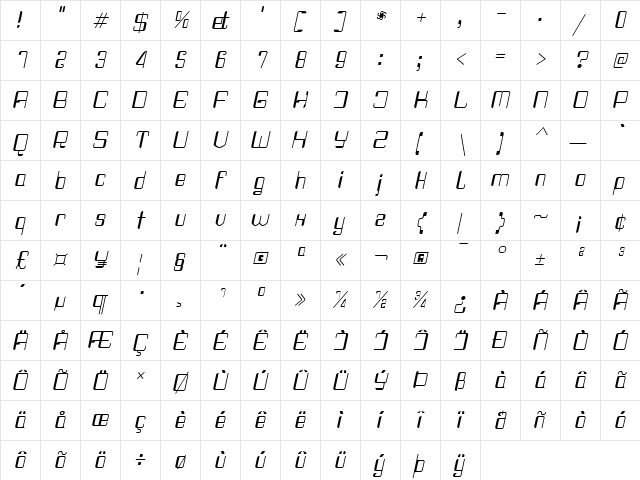
Haike Italic
| Foundry | Otto Maurer |
| Designer | Otto Maurer |
| Year | 2010 |
Design Context for Haike Typeface
Haike takes a measured approach to typography — its balanced proportions and neutral character make it a reliable workhorse for both digital and print work. The slanted form adds forward momentum and visual energy.